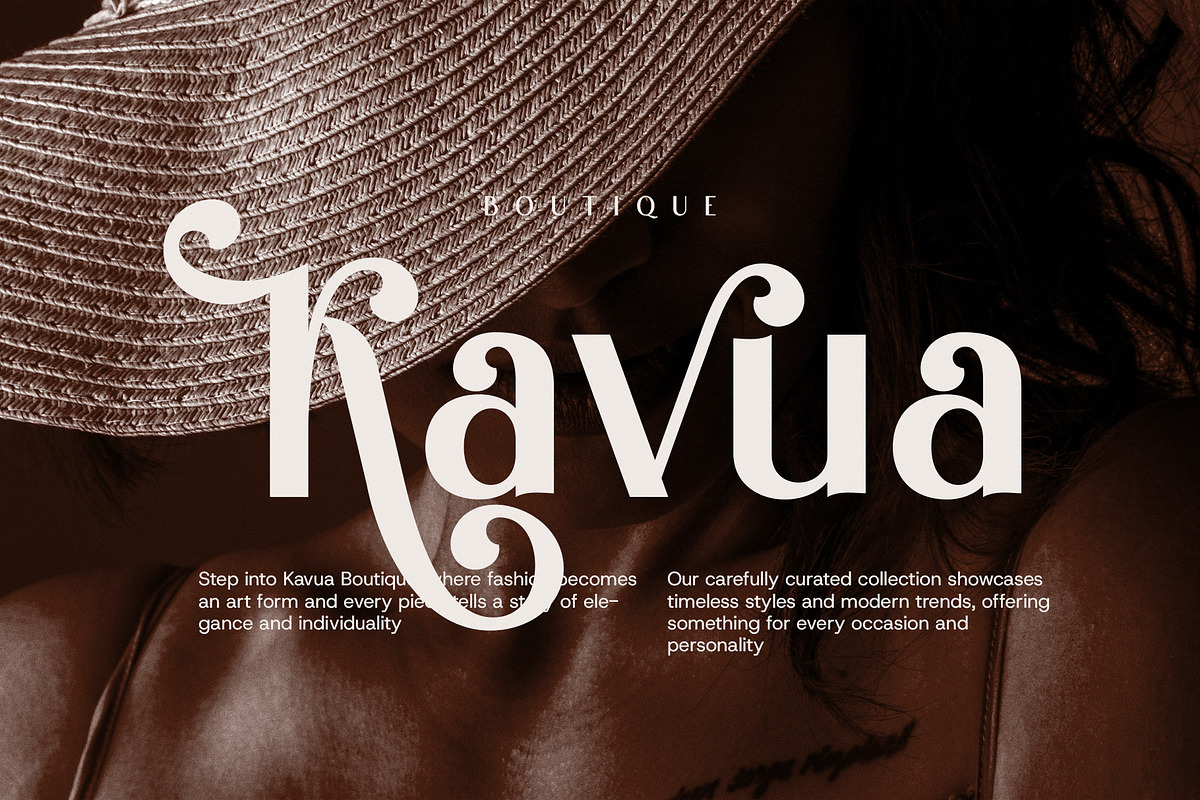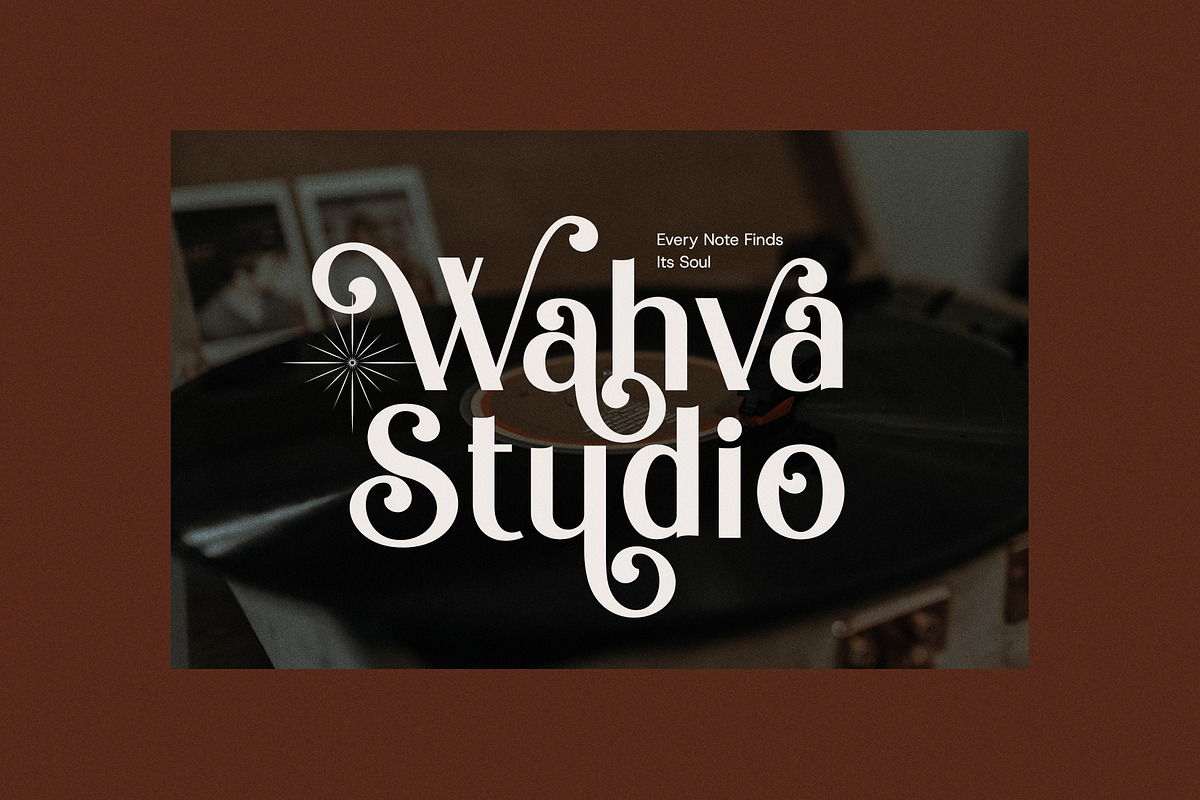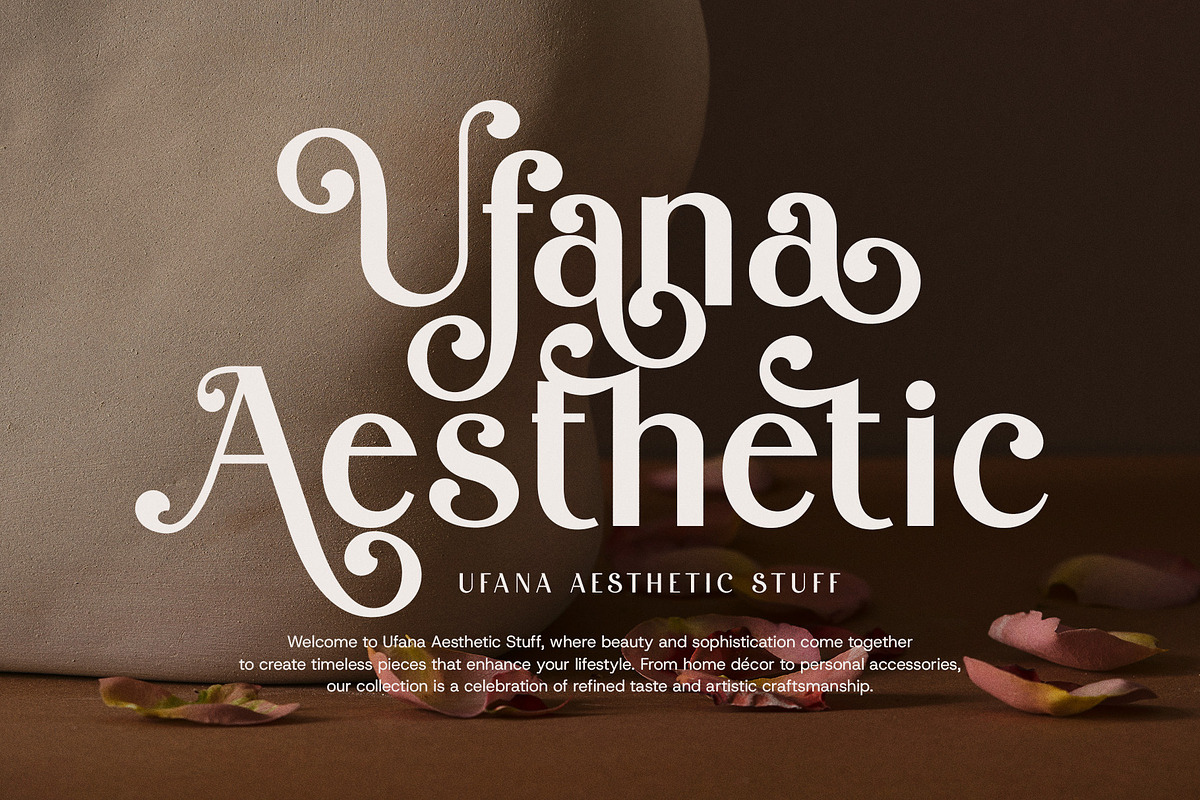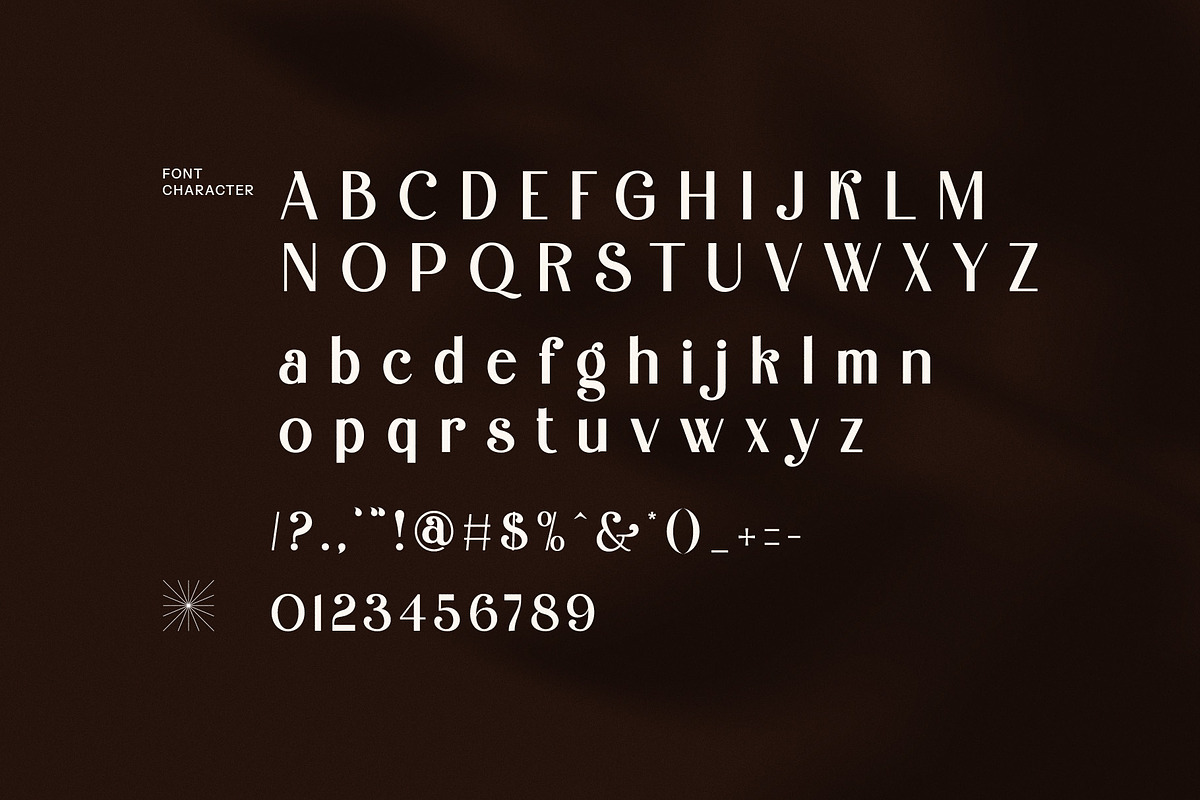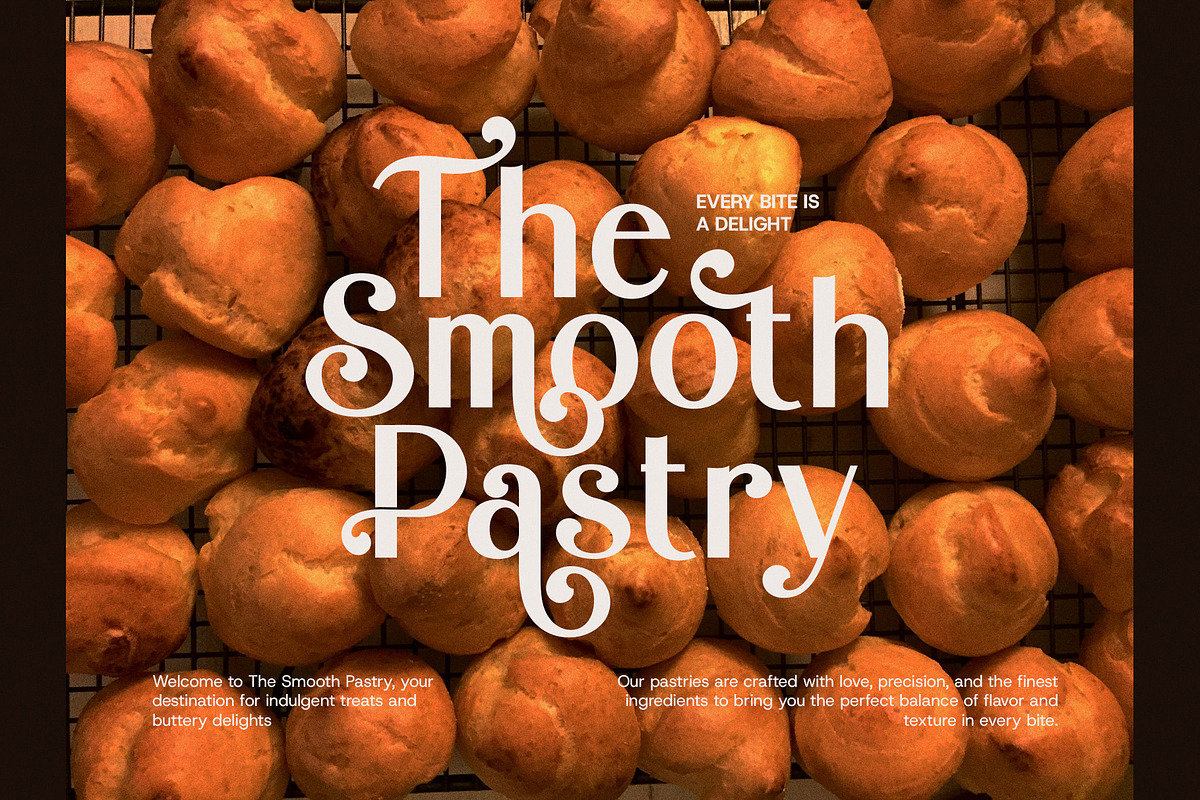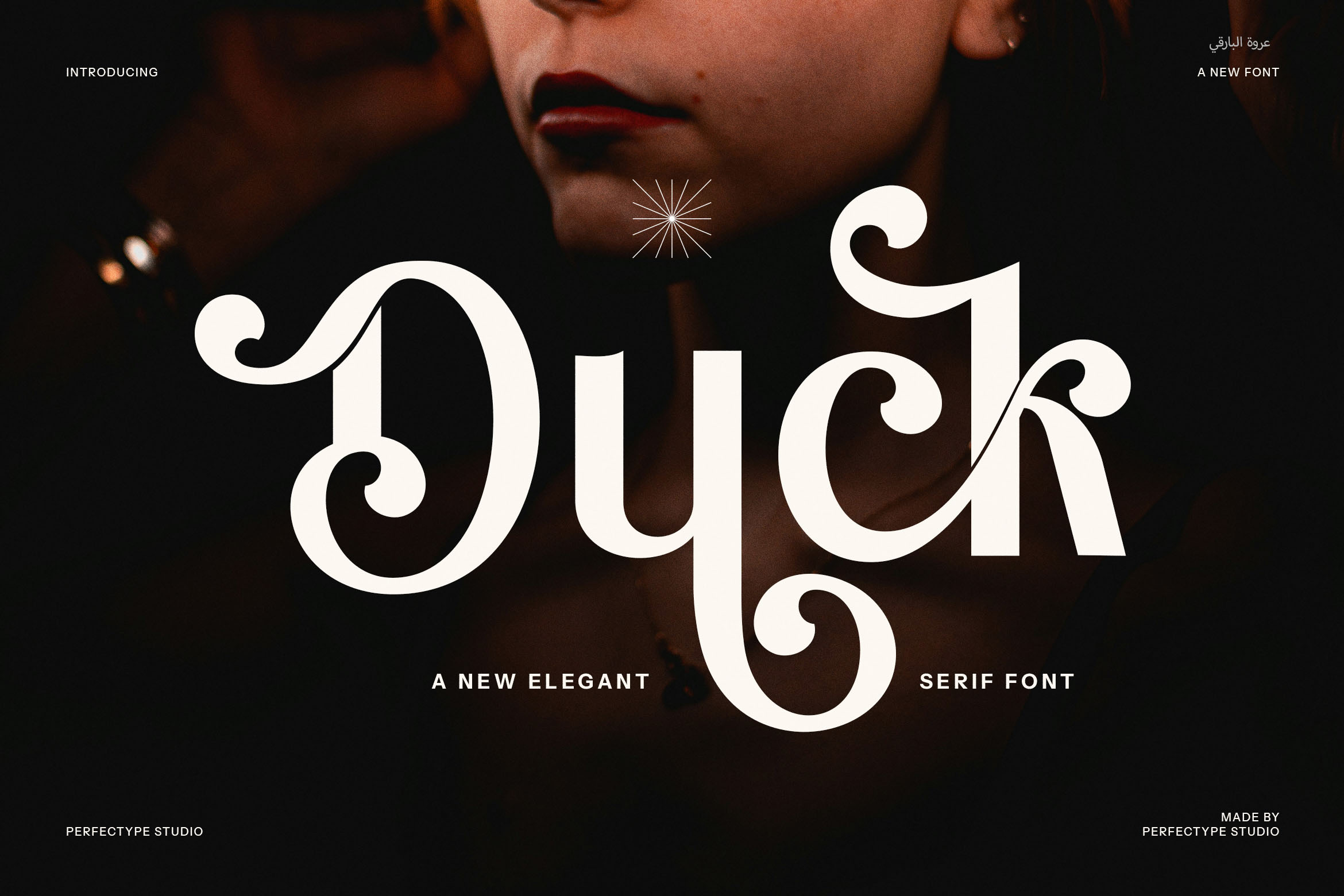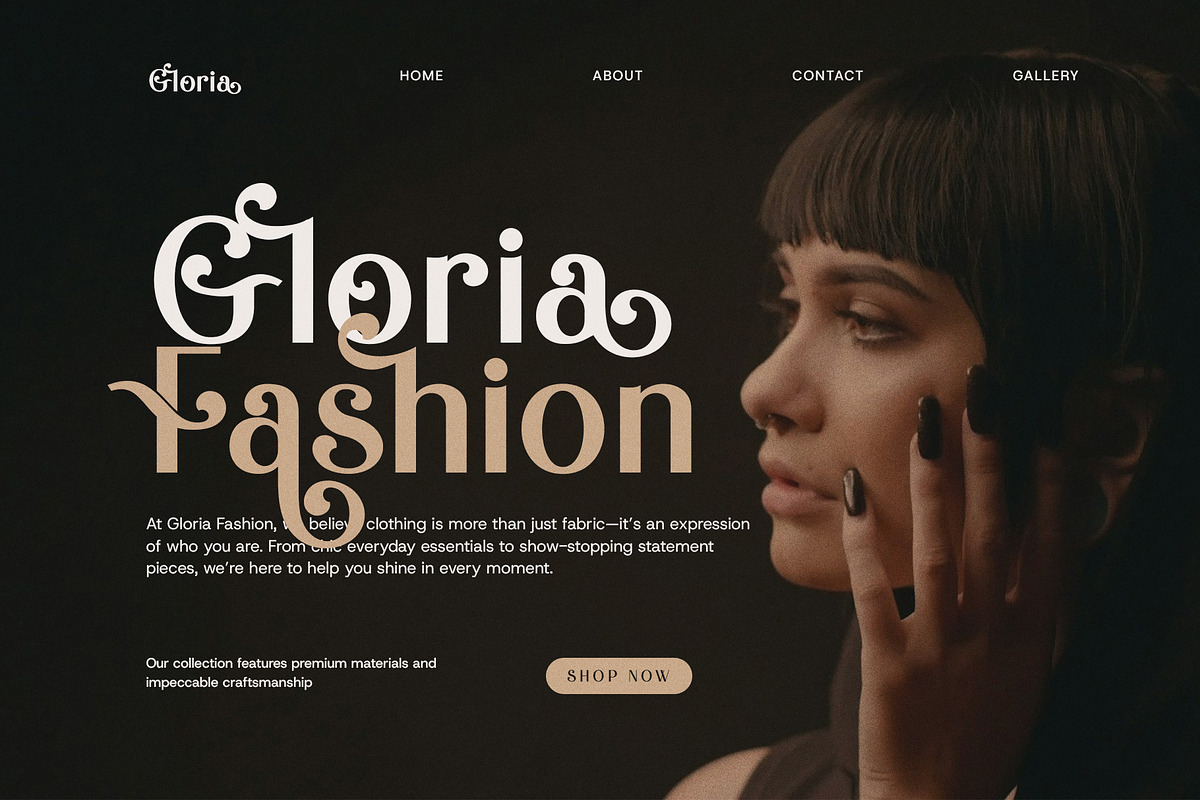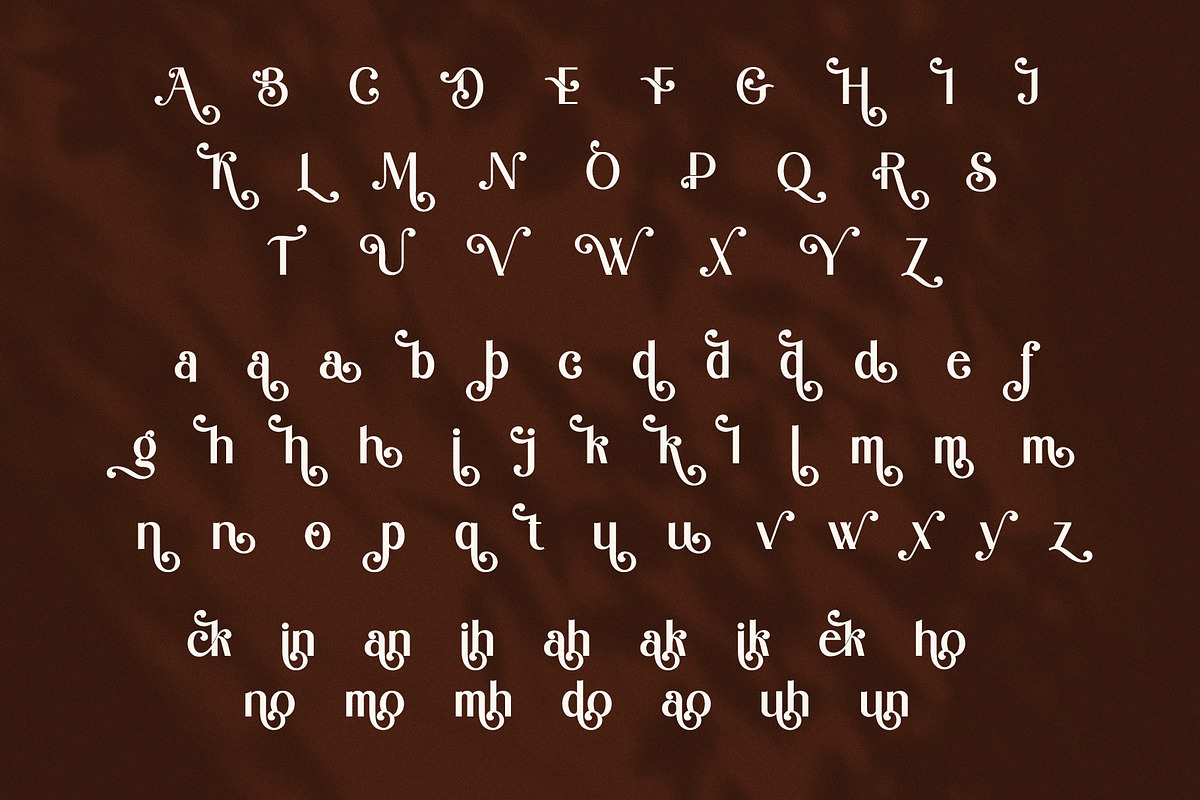
Duck Modern Sans Serif Font
Introducing Duck Modern Sans Serif Font, a contemporary typeface that seamlessly blends modern sophistication with playful character. Designed with versatility in mind, this semi-serif font offers a clean and sleek appearance, ideal for a wide range of creative projects. Whether you're working on a logo, branding, website, or magazine layout, Duck Modern brings an air of elegance and professionalism while maintaining a unique, approachable flair.
One of the standout features of this font is its distinctive ligatures and alternate letterforms. These carefully crafted details add an extra layer of personality, making your designs truly stand out. The font’s elegant curves and subtle serifs give it a refined yet contemporary vibe, making it perfect for a variety of industries—from boutiques and food brands to high-end product advertisements.
Duck Modern’s versatility shines in digital and print applications alike, offering a polished aesthetic for websites, magazine spreads, and product packaging. Its balanced letter spacing and clear legibility ensure that it works well across all sizes, whether displayed on a business card or a large billboard.
With its dynamic mix of classic and modern design elements, Duck Modern Sans Serif Font is more than just a typeface—it's a creative tool that elevates your visual identity. Whether you're crafting an eye-catching brand or enhancing your website’s user experience, Duck Modern delivers style and substance in equal measure.